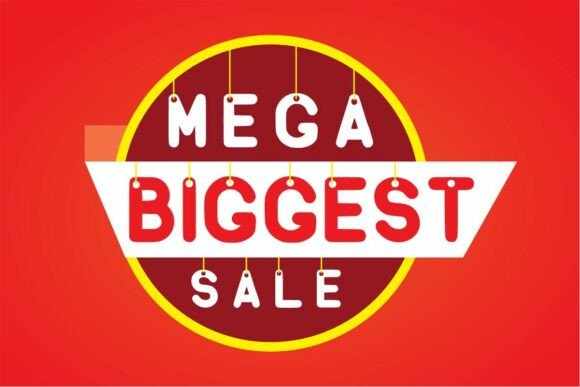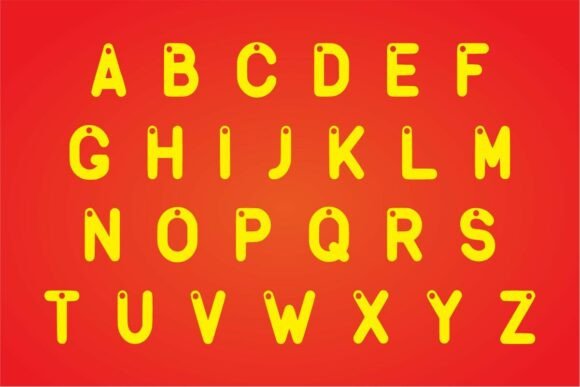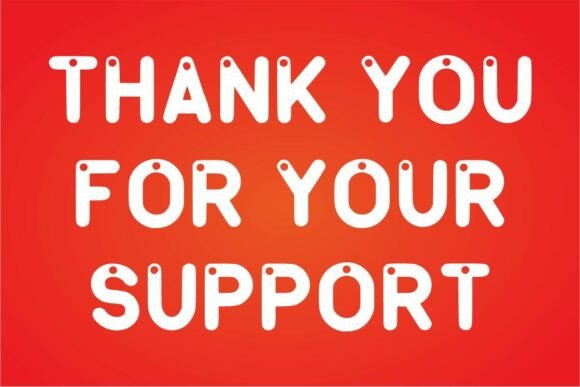
Introduction to Big Sale Font
Do you remember the thrill of discovering a hidden treasure in a thrift store or a quirky find at a vintage market? That same excitement can be captured in a design with the perfect font. For designers looking to add a pop of fun and energy to their projects, the Big Sale Font is a game-changer. This cheerful display font is designed to make everyone happy, with a rounded aesthetic and strong capital letters that are sure to grab attention.
Whether you’re working on a promotional poster, a logo, or a packaging design, the Big Sale Font is the perfect addition to your creative project. Its sleek, modern style creates a strong and authentic visual impact that’s sure to stand out. And the best part? This high-quality font is available for free download, making it an invaluable design resource for designers of all levels.
Key Features of Big Sale Font
- High-Quality Typography: Big Sale Font is designed with precision and attention to detail, making it a valuable design resource for creative projects.
- Transparent Background: The font’s transparent background makes it easy to use with any design, allowing for seamless integration and creative freedom.
- Large Character Set: With over 1000 glyphs, Big Sale Font offers a comprehensive character set, making it suitable for a variety of creative projects, from logos to body text.
- High Resolution: The font is available in high-resolution formats, making it perfect for use in print and digital media, including billboards, posters, and websites.
- Scalable Design: Big Sale Font is designed to be highly scalable, allowing it to be used effectively in a range of sizes, from small titles to large headings.
Honest Review: Big Sale Font
I recently stumbled upon the Big Sale Font, and I must say it’s a great addition to my design resource library. The free download was a pleasant surprise, and the quality of the font is top-notch.
What works well is the modern, sleek design that makes it perfect for a creative project like a promotional poster or a website header. The transparent background allows for easy integration with any background image or color, giving designers flexibility and control.
- ✨ Modern and sleek design
- ✨ High quality and crisp typography
- ✨ Transparent background for easy integration
- ✨ Great for creative projects, such as promotional posters or website headers
However, there are a few limitations to consider. The font is not suitable for body text, as it may be too ornate and distracting. Additionally, the font family is quite limited, with only a few weights and styles available.
- ⚠️ Not suitable for body text
- ⚠️ Limited font family with few weights and styles
Overall, I’m impressed with the Big Sale Font, and I’d definitely recommend it to designers looking for a high-quality, modern font for their creative projects.
Tips for Getting the Most Out of the Big Sale Font
To maximize the impact of the Big Sale Font, use it sparingly and strategically. Pair it with other high-quality design resources, such as graphics and images, to create a visually appealing design.
The Big Sale Font is ideal for:
- Advertising and marketing materials.
- Business cards and letterheads.
- Website headers and footers.
- Social media graphics and posts.